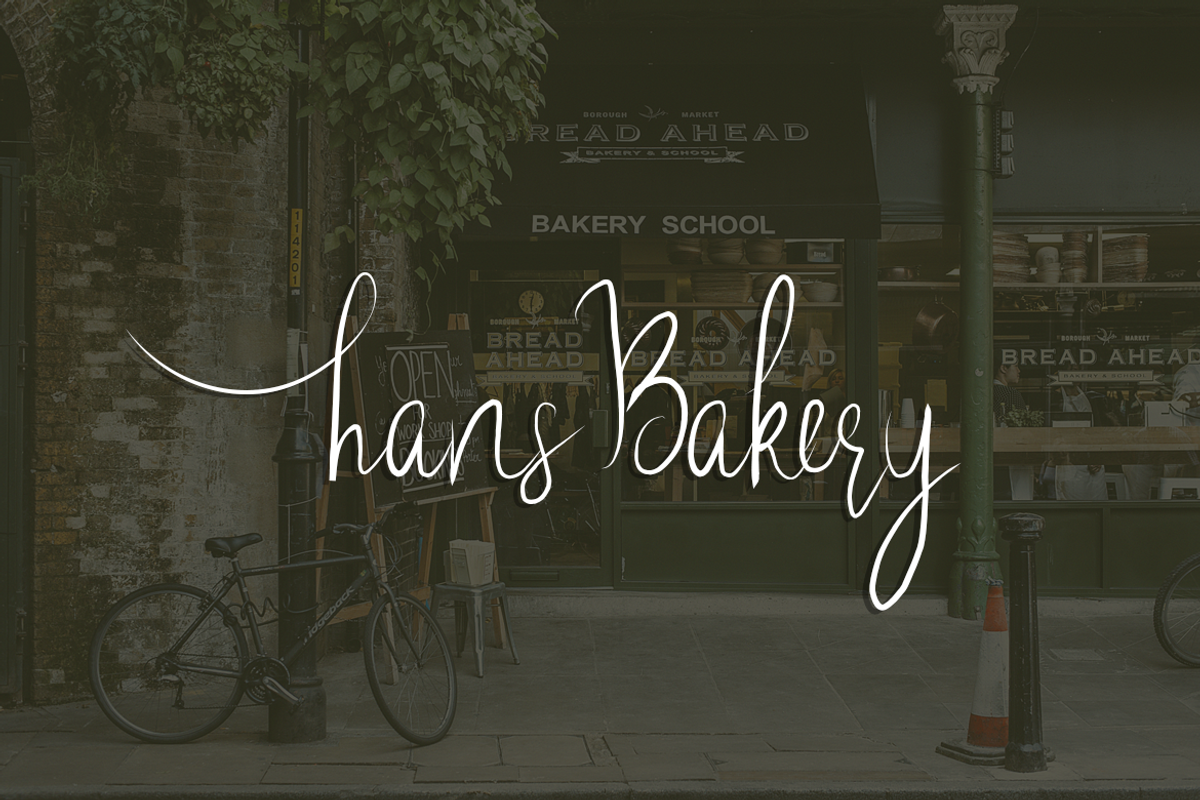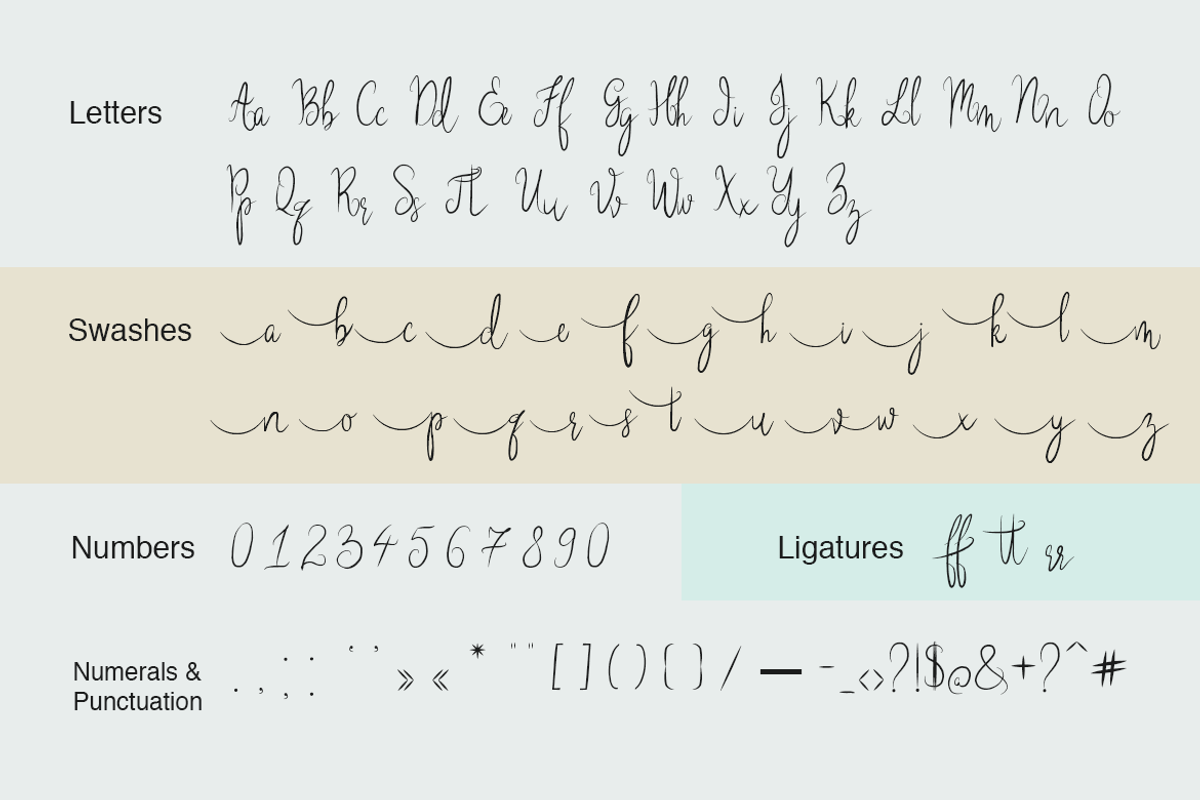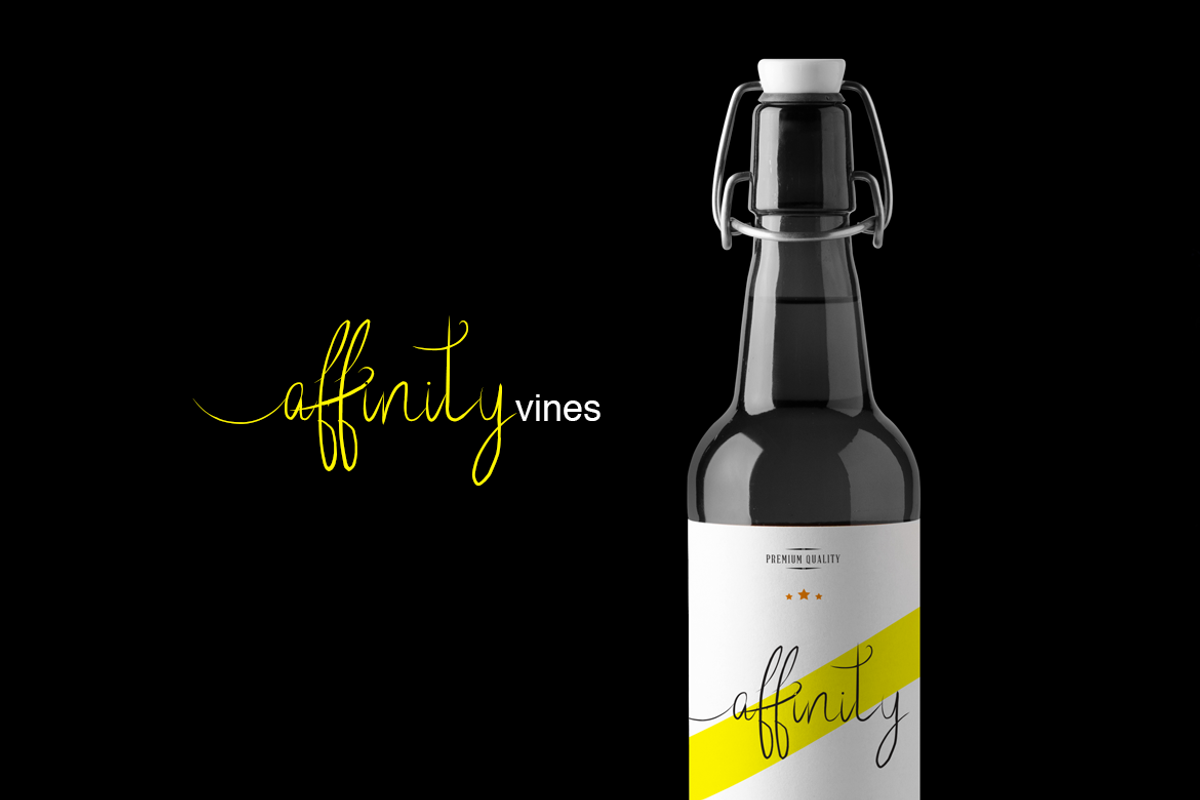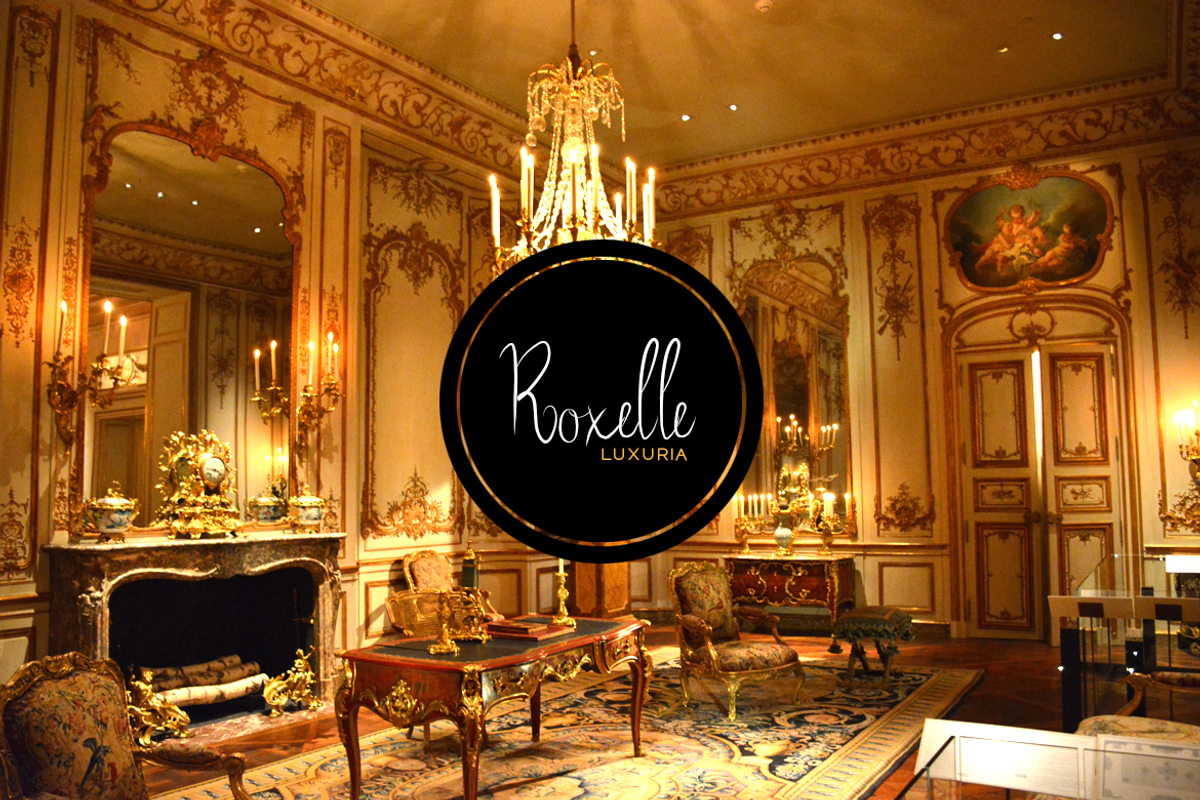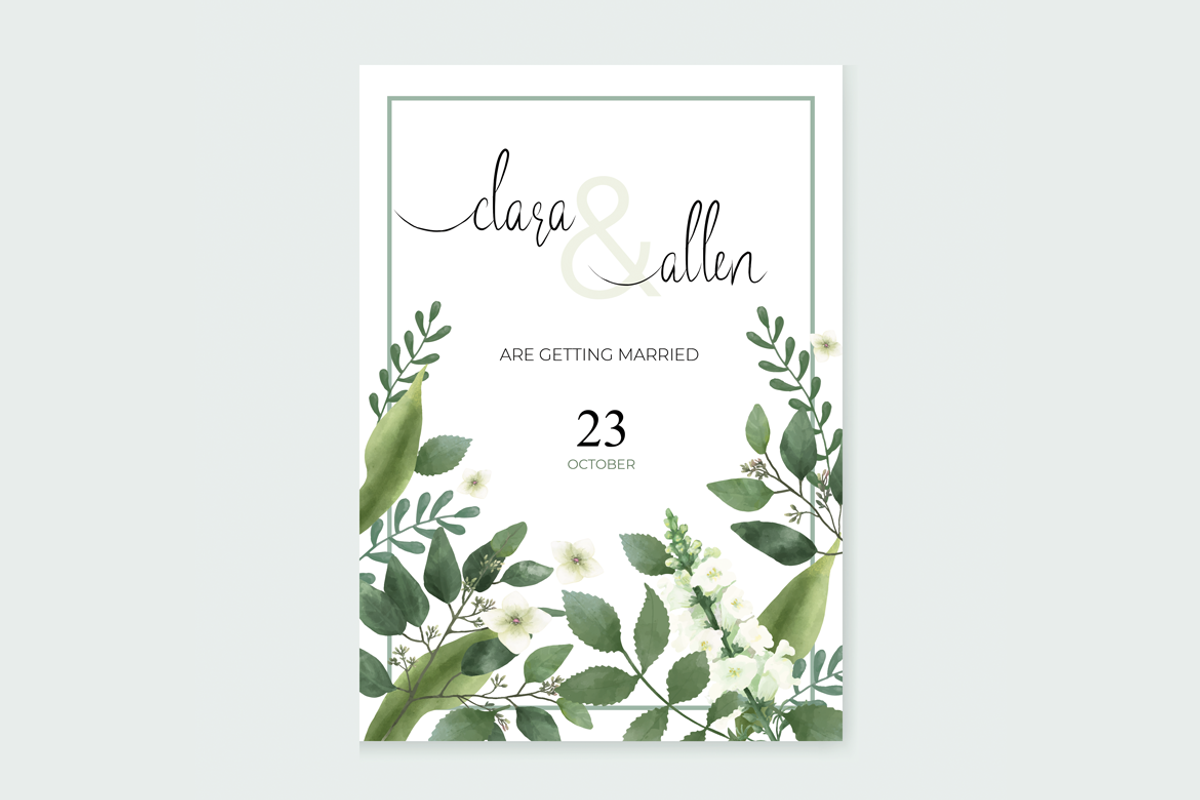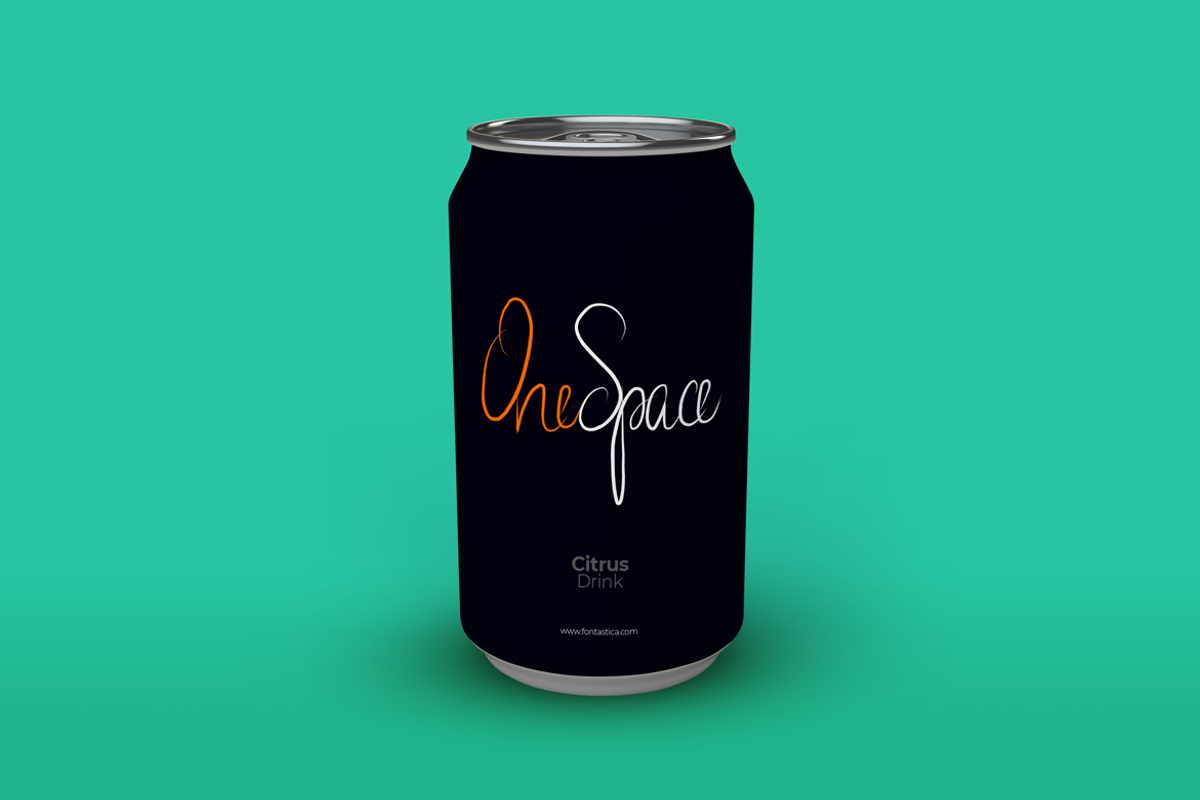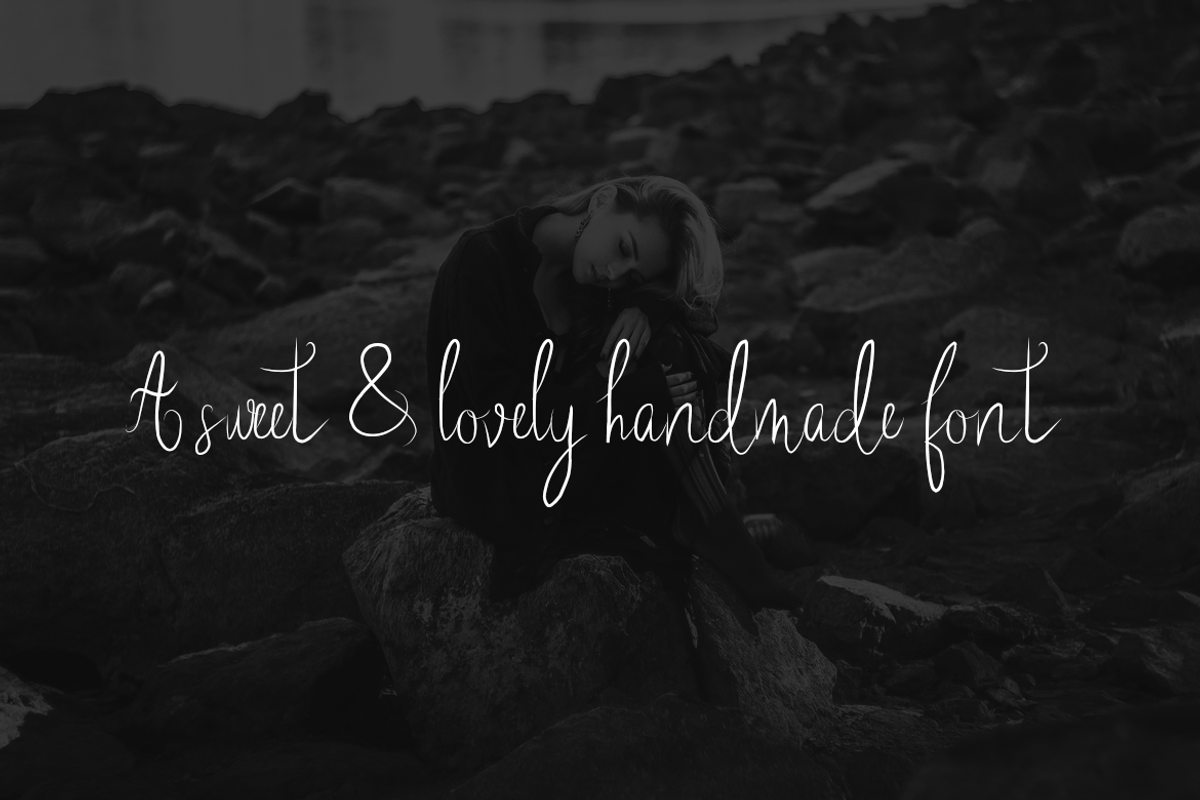
Clarette Dior - Handwritten Font
Clarette Dior! A lovingly created, beautiful handwritten font for luxury / branding / wedding invites / greeting cards / promotional graphics. This font is handcrafted with custom brushes, made with perfection and finest aesthetics.
We have performed advanced, in-depth kerning to make sure the font looks amazing on all possible letter combinations.
Clarette Dior includes full set of lowercase letters featuring opening swashes (we will add closing swashes in the next update). We have included 2 font files (one is regular font, another is for swashes) so that you can easily switch the fonts when you need to write swashes (that is, within your text editor, just select the 'swashes' font for typing any specific small letter having a swash). We have also added common ligatures (more will be added in next update).